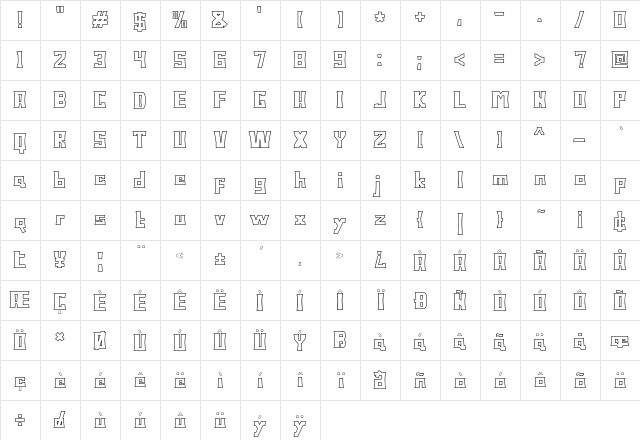
Bodax Outline Regular
Design Context for Bodax Outline Typeface
Bodax Outline is built around its visual character rather than neutral utility — its distinctive forms are designed to make an impression at display sizes.
Font Pairing: Pair with a clean neutral sans-serif for body copy to let Bodax Outline's character lead without overwhelming the composition.
Pro Tip: Treat Bodax Outline as the centrepiece of your typographic hierarchy. One strong heading set in a decorative face can carry an entire layout.